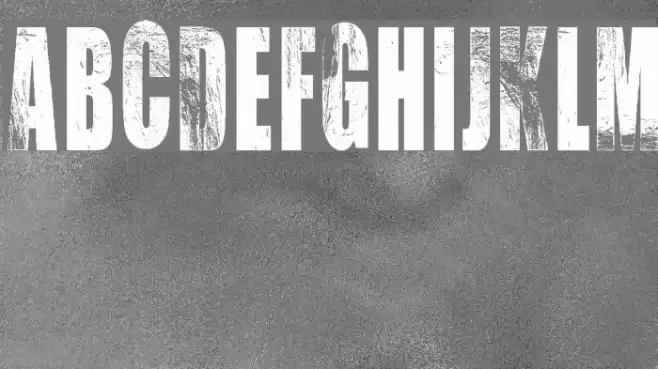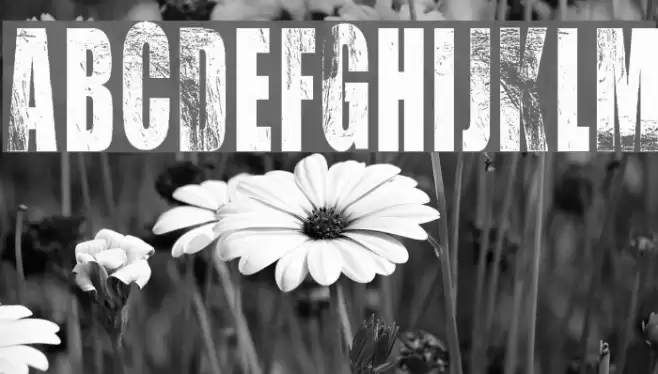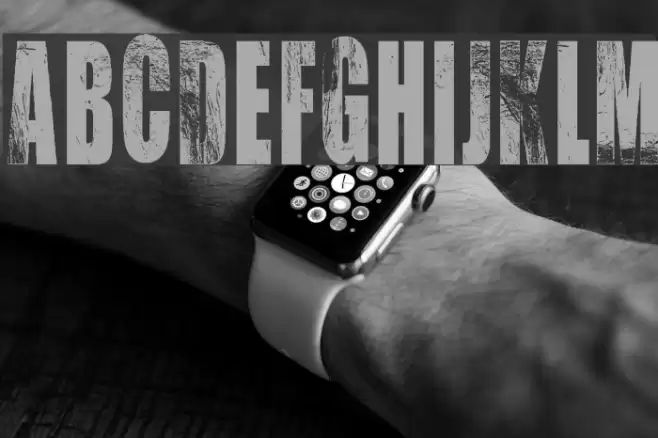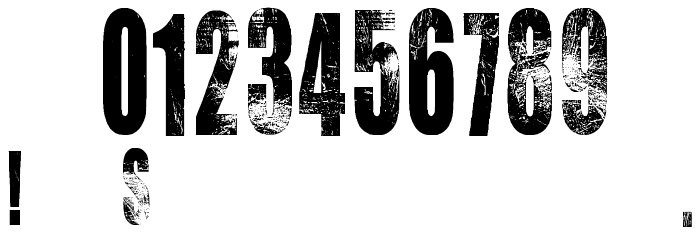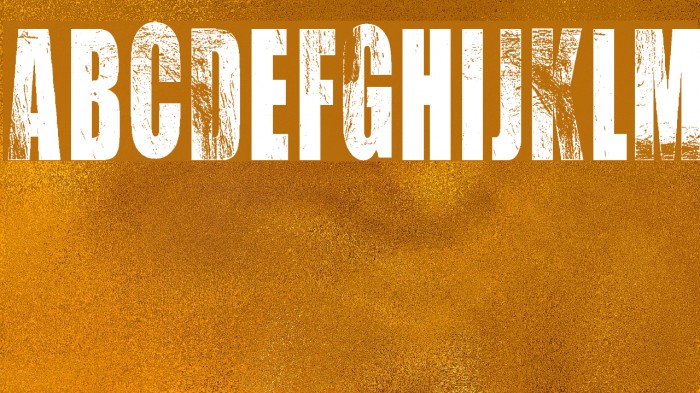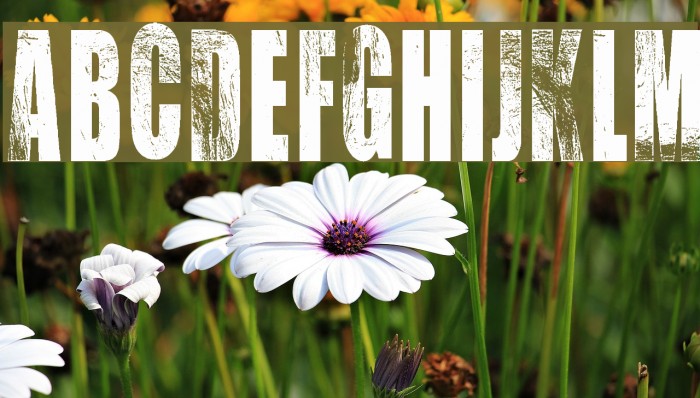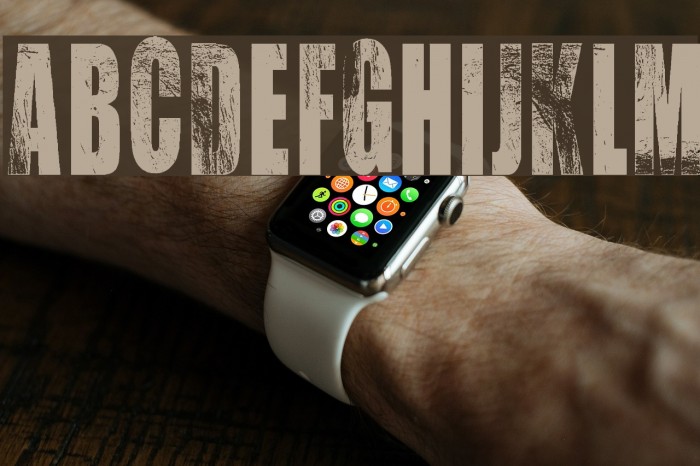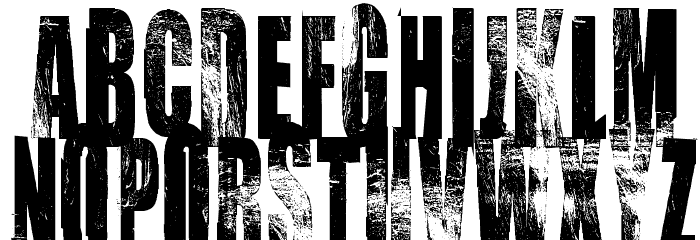
VTKS CHOICE Font
VTKS CHOICE Description
This font features a bold, distressed style with a grunge texture that gives it a rugged and worn appearance. The characters are thick and heavy, with a high level of contrast between the filled and distressed areas, creating a striking visual impact. The uppercase and lowercase letters maintain a consistent width, contributing to a uniform look despite the textured effect. The numbers and special characters follow the same design, ensuring cohesion across all elements. This font's unique style makes it ideal for projects that require a bold statement or an edgy, urban aesthetic.
A bold, distressed font with a grunge texture and high contrast from Uncategorized fonts.
- Proposed Projects: Ideal for posters, album covers, streetwear branding, and edgy graphic designs.
- Overall Style: Grunge, Urban, Edgy